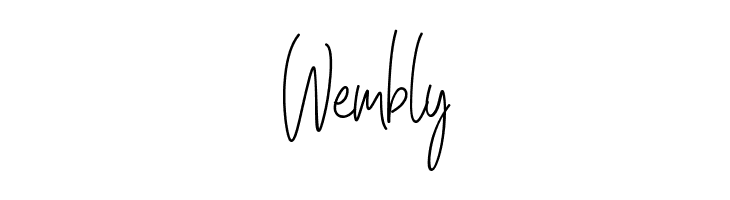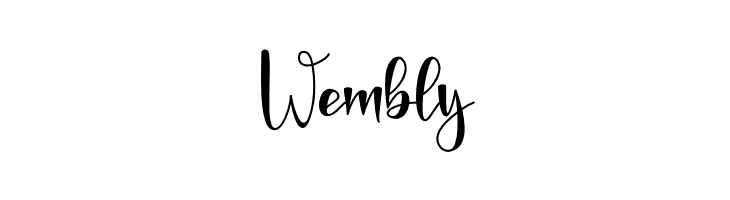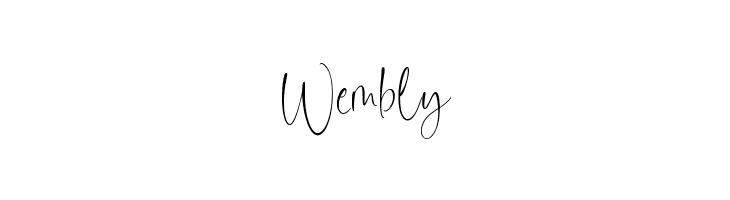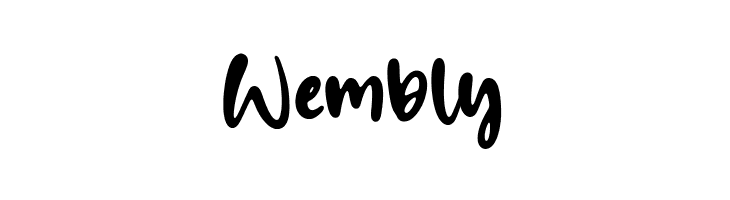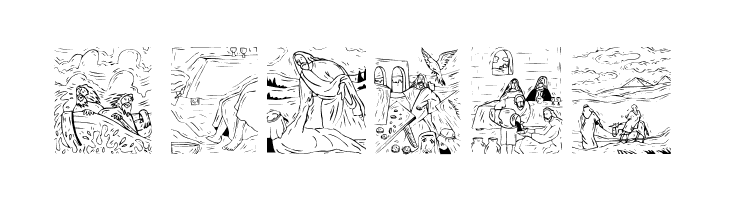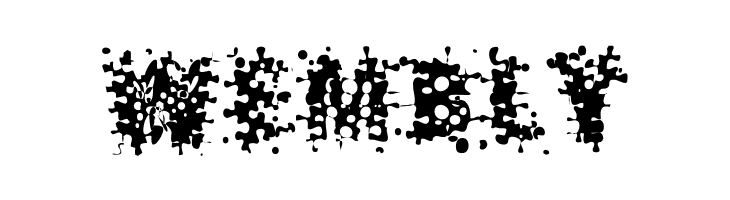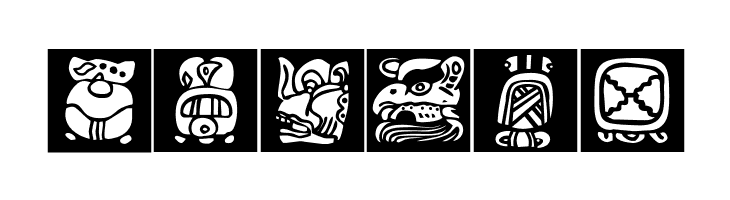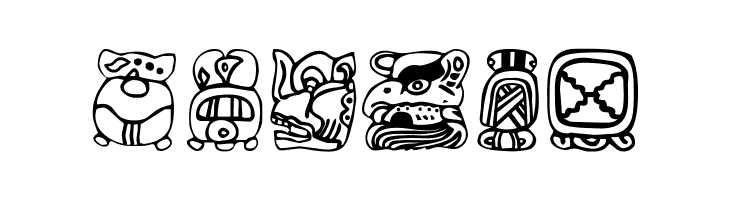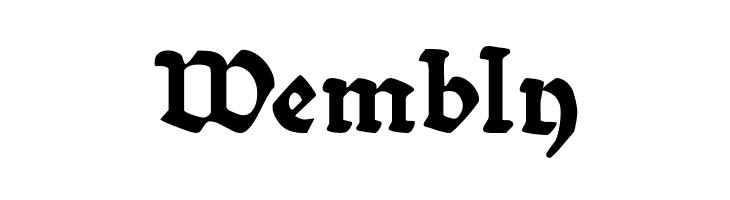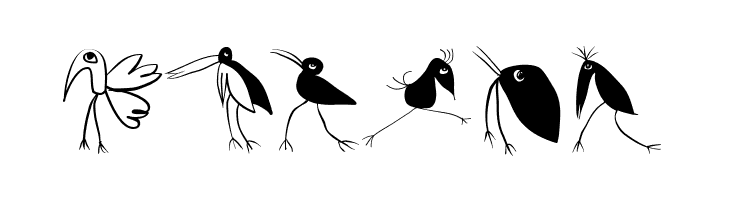
A playful, handwritten font with smooth curves and a casual style.
A whimsical, decorative font with intricate swirls and a vintage, storybook feel.
Intricate glyphs inspired by ancient Mayan script, featuring detailed and artistic designs.
A decorative font inspired by ancient Mayan glyphs, featuring intricate and artistic designs.
Cartoonish, bike-themed decorative font with hand-drawn characters.
A playful, handwritten font with tall, narrow letters and a casual style.
A collection of whimsical bird illustrations in various playful styles.
A whimsical decorative font with bird-like characters, ideal for playful projects.
A modern, geometric font with bold, rectangular frames around each character.
A delicate, handwritten script font with smooth, flowing lines.
A playful, handwritten font with dynamic curves and decorative elements.
A display font made from animal and human silhouettes.
A hand-drawn, sketch-like font with irregular, dynamic strokes.
A rugged, textured font with a splintered, edgy design.
A bold, three-dimensional font with a grid shadow effect, offering a modern and playful look.
A pixelated, retro-style font with a bold, geometric design.
A bold, rugged font with a hand-carved, textured appearance.
A whimsical, elegant handwritten font with flowing cursive strokes.
A decorative font with interconnected dots and splatters, resembling ink blots.
A bold, pixelated font with a retro, digital aesthetic.
A pixelated, retro-style font with a geometric and digital appearance.
An elegant serif font with high contrast and sharp serifs.
A bold, geometric font with strong strokes and modern appeal.
An ornate and decorative font with intricate embellishments.
A decorative, industrial-themed design with gear-like motifs around letters.
A bold, playful handwritten font with rounded, dynamic strokes.
Hand-drawn, food-themed cartoon illustrations replace standard glyphs.